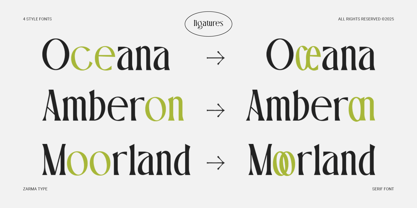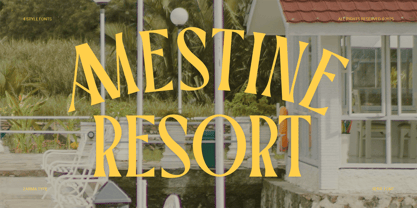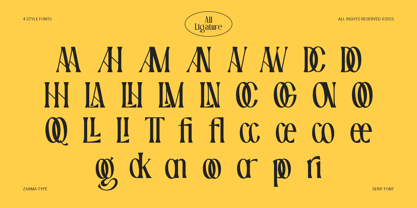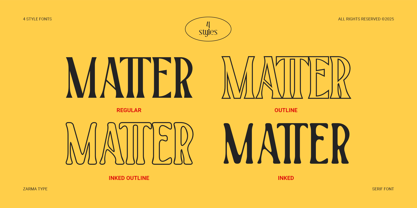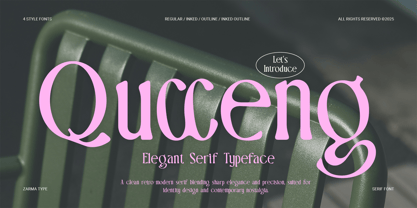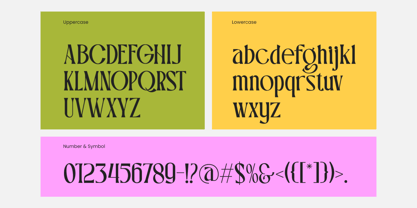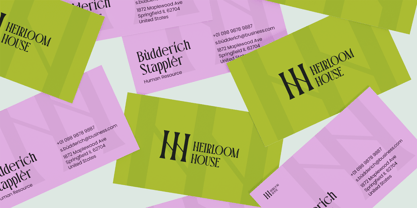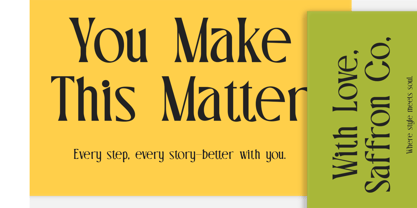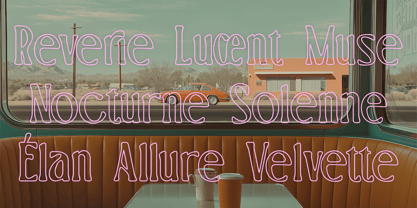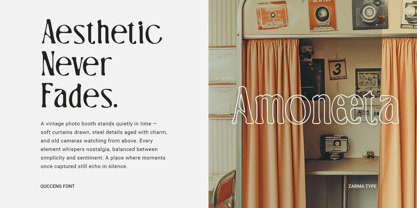
Qucceng
The Qucceng Font Family was designed by Azzam Ridhamalik and published by Azzam Ridhamalik. Qucceng contains 4 styles and family package options.
Buccario is an elegant serif typeface that brings a fresh twist to retro and vintage design trends. With its sophisticated curves, reversed contrast details, and high-legibility structure, Buccario elevates every layout with a sense of refined playfulness. This typeface draws attention effortlessly, making it ideal for branding projects that demand both beauty and personality. The unique shape of each character invites designers to explore creativity without sacrificing clarity.
Whether used in bold headlines, nostalgic packaging, or stylish editorial spreads, Buccario offers strong character with a soft charm. Its versatility is showcased through various alternates, ligatures, and decorative touches that give you room to experiment. Designed with contemporary aesthetics in mind, Buccario seamlessly merges classic elegance with modern appeal.
Perfect for: Logo design, brand identity, packaging, boutique editorial, magazine headers, retro posters, and display typography.
Features: 4 Styles (Regular, Inked, Outline, Inked Outline), Uppercase and Lowercase Character Set, Numbers and Punctuation, Standard & Discretionary Ligatures, Multilingual Support, PUA Encoded Characters.